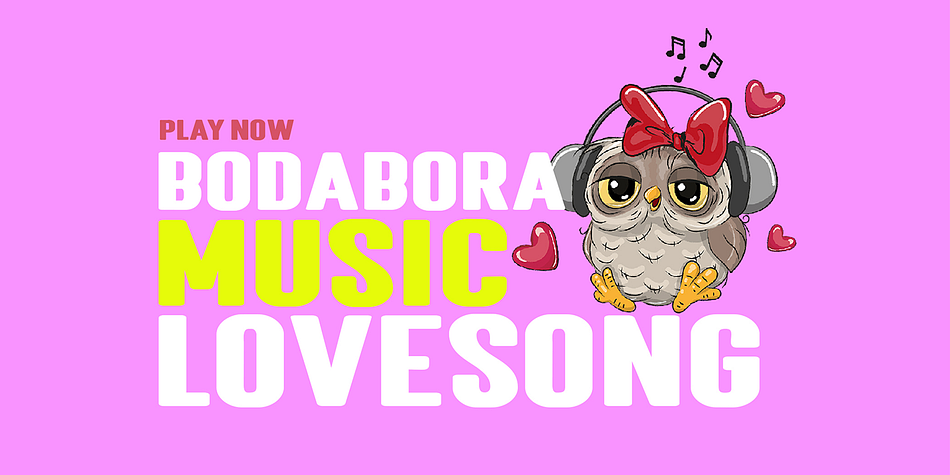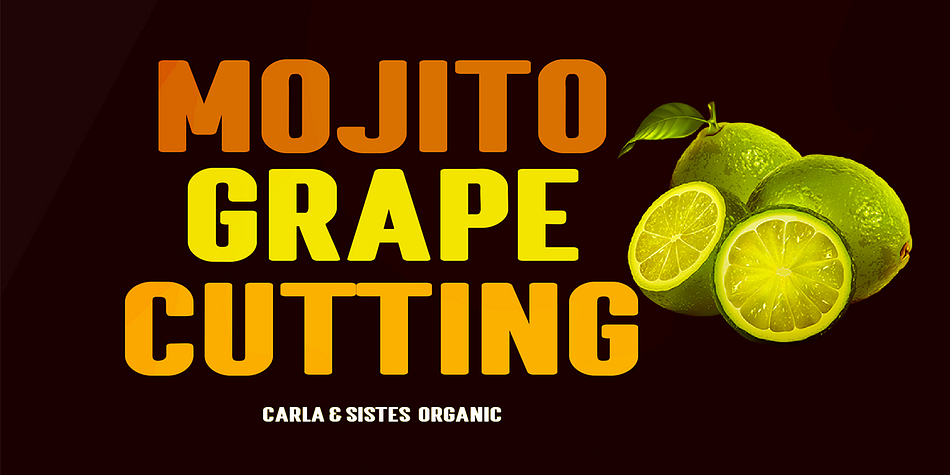
NEUBAS
Neubas is a display sans font family published by Gatype.
Introducing the new Neubas display font with many alternative characters, multilingual support in a unique style.
Neubas is a very versatile font. Perfect for branding projects, logos, magazine imagery, wedding invitations, posters, apparel, packaging, website headers, or simply as a stylish text overlay onto any background image.